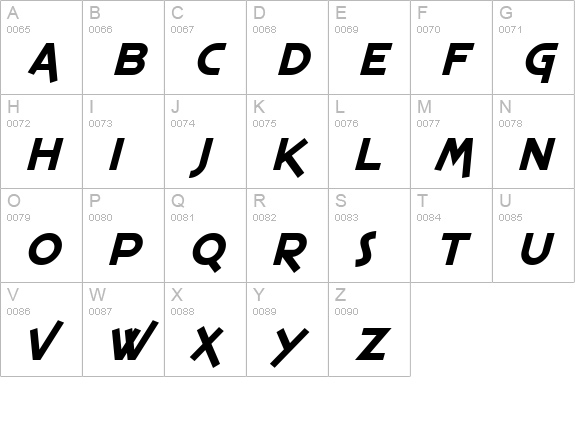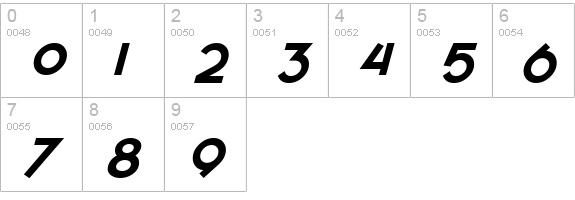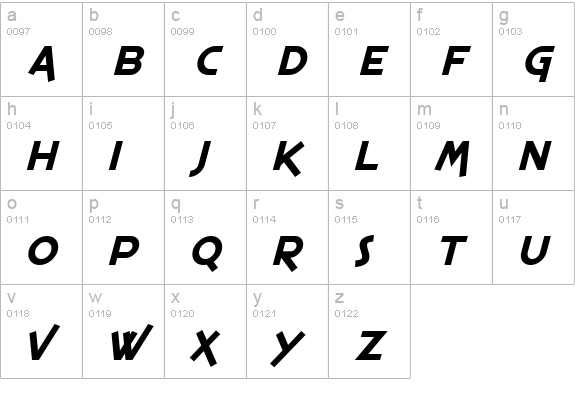
SF Espresso Shack Italic Font Details
SF Espresso Shack Italic is a distinctive, italic variant in the SF typeface family \xE2\x80\x94 well suited to design and typography projects.
Introducing SF Espresso Shack Italic, a font that exudes a sense of modernity and sophistication. This beautifully designed typeface is perfect for adding a touch of elegance and style to any project. SF Espresso Shack Italic features sleek and sleek lines, with a slight slant that adds a subtle sense of movement and dynamism. Its refined curves and delicate letterforms create a harmonious balance between professionalism and creativity. What sets SF Espresso Shack Italic apart is its versatility. Whether you're designing a logo, crafting an eye-catching poster, or creating a stunning website, this font adapts effortlessly to any medium. Its stylish and unique aesthetic will captivate your audience and leave a lasting impression. And the best part? SF Espresso Shack Italic is available for free! Yes, you read that right. This exceptional font can be freely downloaded at FontsMarket.com, allowing you to unleash your creativity without any constraints. With SF Espresso Shack Italic, you have the freedom to express your ideas and visions in the most captivating way possible. So why wait? Download this extraordinary font today and elevate your designs to new heights of sophistication and allure.